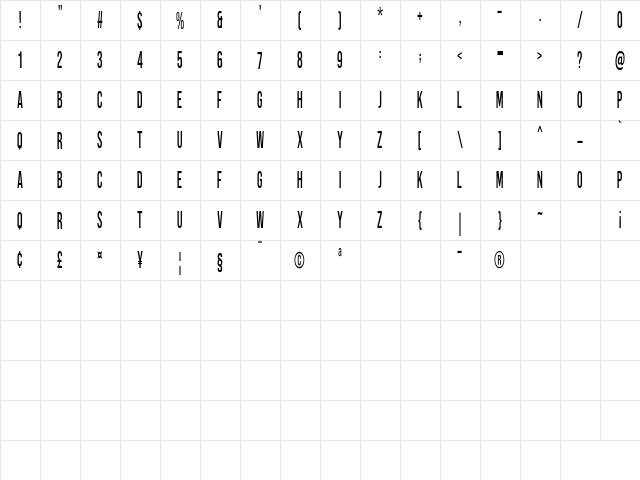
Sans Fransisco Regular
| Designer | Julie Anna |
Design Context for Sans Fransisco Typeface
Sans Fransisco takes a measured approach to typography — its balanced proportions and neutral character make it a reliable workhorse for both digital and print work.